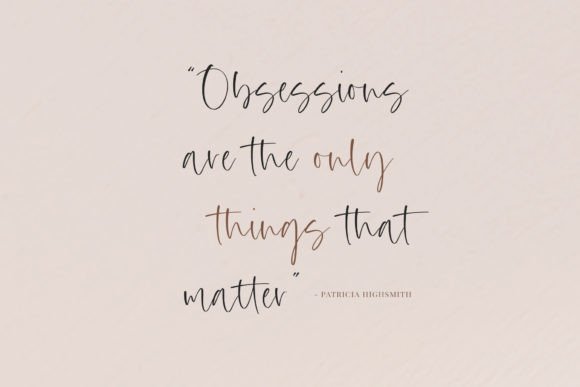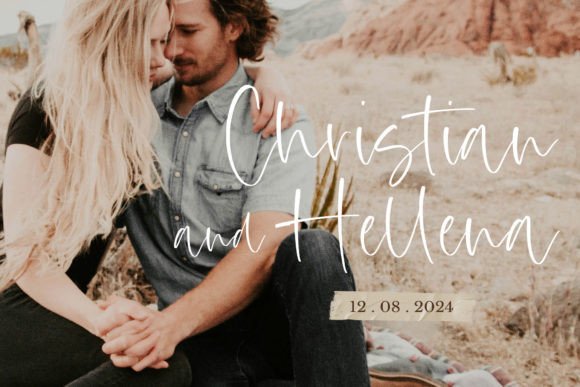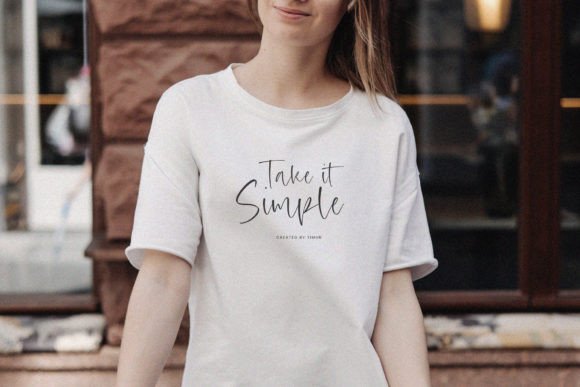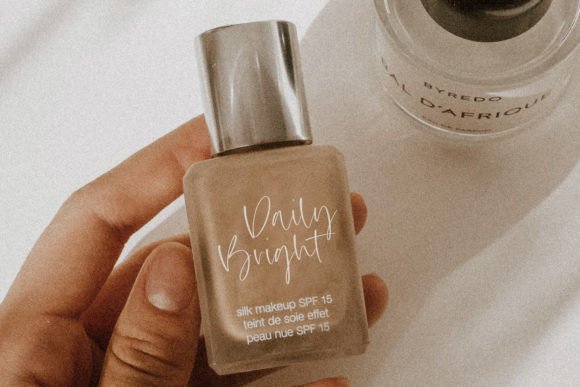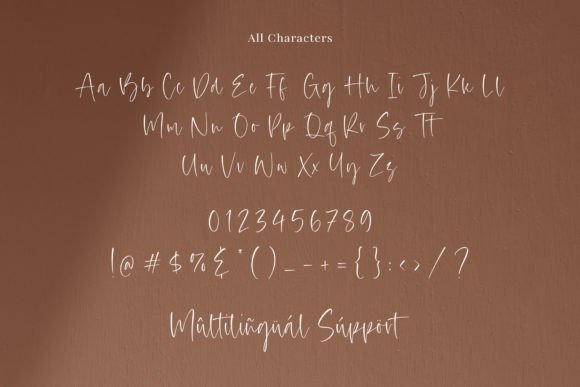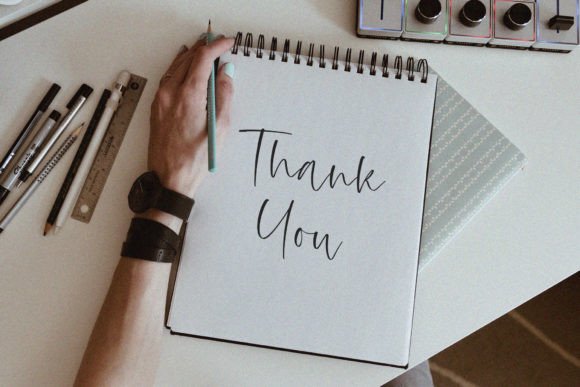
Gustavo Austin Font: Elevate Your Design with Luxury and Elegance
Are you looking for a font that can add a touch of luxury and sophistication to your design projects? Look no further than the Gustavo Austin Font. This beautiful and light handwritten font is designed to make a stunning impact, and its unique feel is sure to elevate your designs to the next level.
What Makes Gustavo Austin Font So Special?
Gustavo Austin Font is a one-of-a-kind font that boasts a distinctive and elegant style. Its light and airy feel makes it perfect for designs that require a touch of sophistication and refinement. Whether you’re working on a branding project, a website, or a craft project, this font is sure to add a luxury spark that sets your design apart from the rest.
Key Features of Gustavo Austin Font
- Unique and Handwritten Style: Gustavo Austin Font features a beautiful, handwritten style that is both elegant and refined.
- Light and Airy Feel: The font’s light and airy feel makes it perfect for designs that require a touch of sophistication and refinement.
- Luxury and Sophistication: This font is designed to add a touch of luxury and sophistication to any design project.
- Versatile: Gustavo Austin Font can be used for a wide range of design projects, from branding and websites to crafts and DIY projects.
How to Use Gustavo Austin Font in Your Design Projects
Using Gustavo Austin Font in your design projects is easy. Here are a few tips to get you started:
- Pair it with Other Fonts: Pair Gustavo Austin Font with other fonts to create a unique and visually appealing design.
- Use it for Headings and Titles: Use Gustavo Austin Font for headings and titles to add a touch of luxury and sophistication to your design.
- Experiment with Different Colors: Experiment with different colors to find the perfect combination that works with your design.
Benefits of Using Gustavo Austin Font
There are many benefits to using Gustavo Austin Font in your design projects. Here are a few:
- Adds a Touch of Luxury: Gustavo Austin Font adds a touch of luxury and sophistication to any design project.
- Unique and Eye-Catching: The font’s unique and handwritten style makes it eye-catching and memorable.
- Versatile: Gustavo Austin Font can be used for a wide range of design projects, from branding and websites to crafts and DIY projects.
- Easy to Use: The font is easy to use and can be paired with other fonts to create a unique design.
Who Can Benefit from Using Gustavo Austin Font?
Gustavo Austin Font is perfect for designers, crafters, and DIY enthusiasts who want to add a touch of luxury and sophistication to their design projects. Here are a few examples of who can benefit from using this font:
- Graphic Designers: Graphic designers can use Gustavo Austin Font to create stunning branding and advertising materials.
- Web Designers: Web designers can use the font to create beautiful and elegant websites.
- Crafters and DIY Enthusiasts: Crafters and DIY enthusiasts can use Gustavo Austin Font to add a touch of luxury and sophistication to their craft projects.
In conclusion, Gustavo Austin Font is a beautiful and light handwritten font that can add a touch of luxury and sophistication to any design project. Its unique and elegant style makes it perfect for designers, crafters, and DIY enthusiasts who want to create stunning and memorable designs. With its versatility, ease of use, and eye-catching style, Gustavo Austin Font is a must-have font for anyone looking to elevate their designs to the next level.